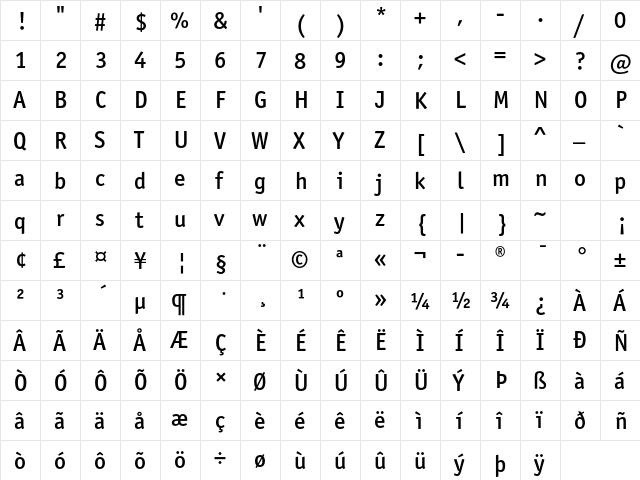
OfficinaSansITCStd Medium Font Preview
OfficinaSansITCStd Medium
OfficinaSansITCStd Medium Font Details
| Designer | Erik Spiekermann and Ole Schaefer |
Design Context for OfficinaSansITCStd Typeface
OfficinaSansITCStd is a composed and adaptable typeface that performs quietly and consistently across a wide range of design contexts.